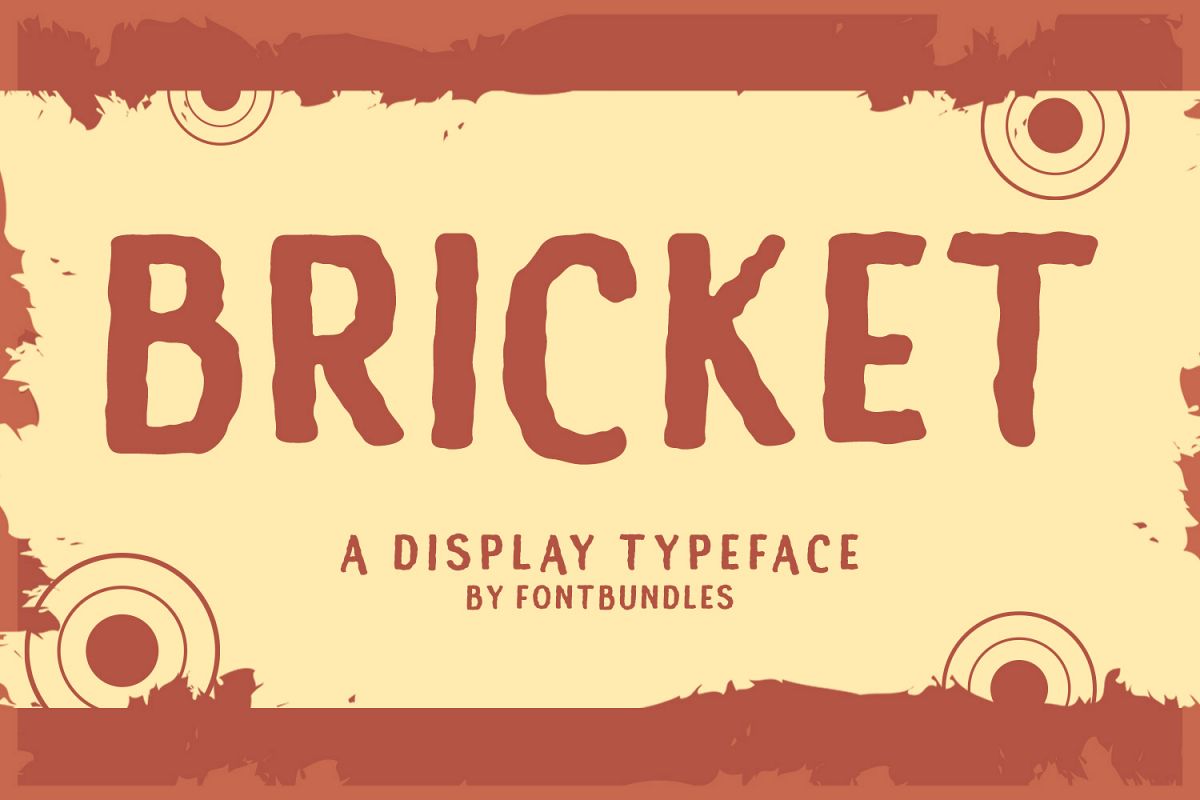
Bricket is a display typeface with rough touch. Perfect for logotype, quotes, packaging, flyer, poster, records cover, social media banner, and event merchandise.